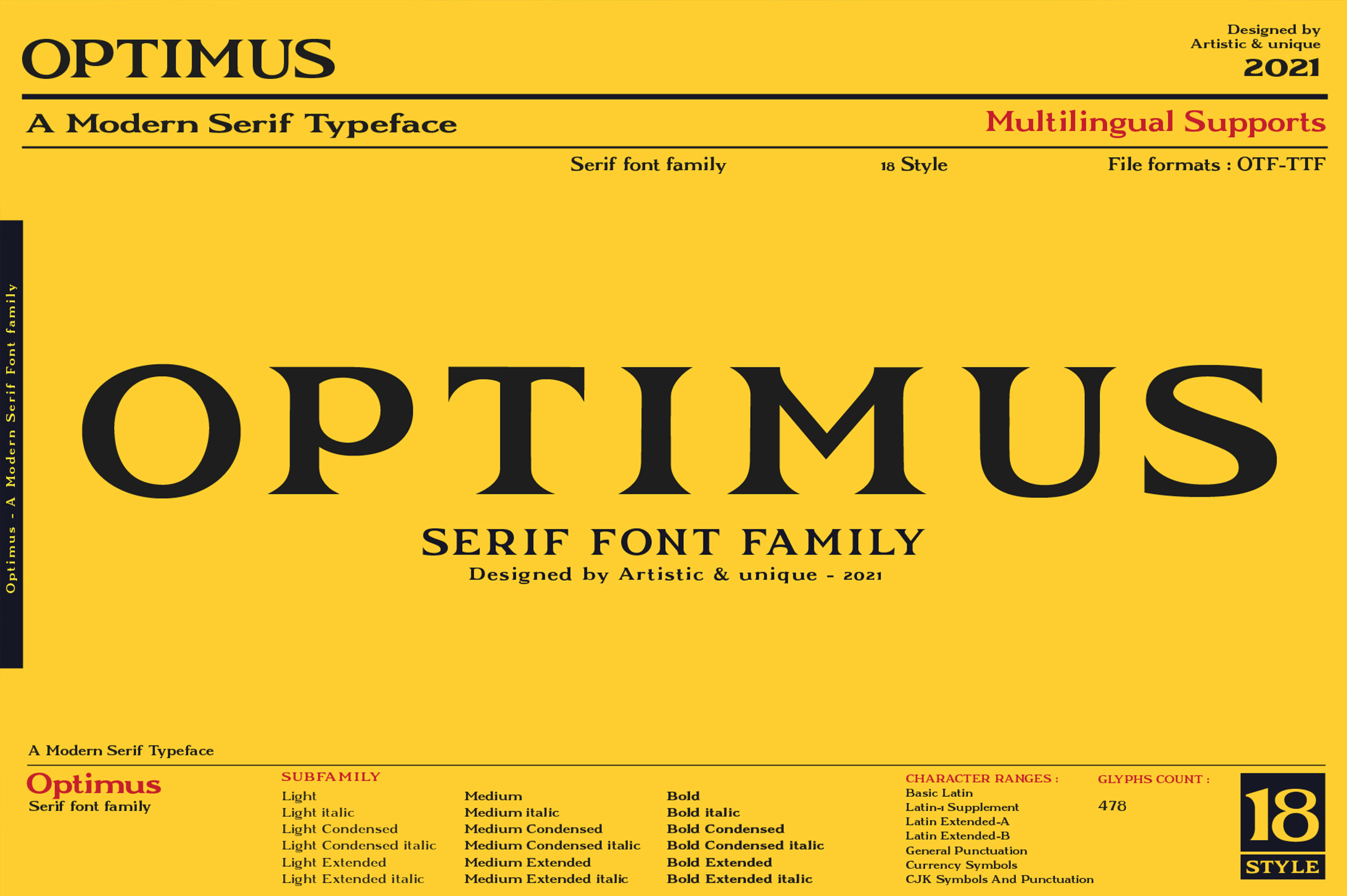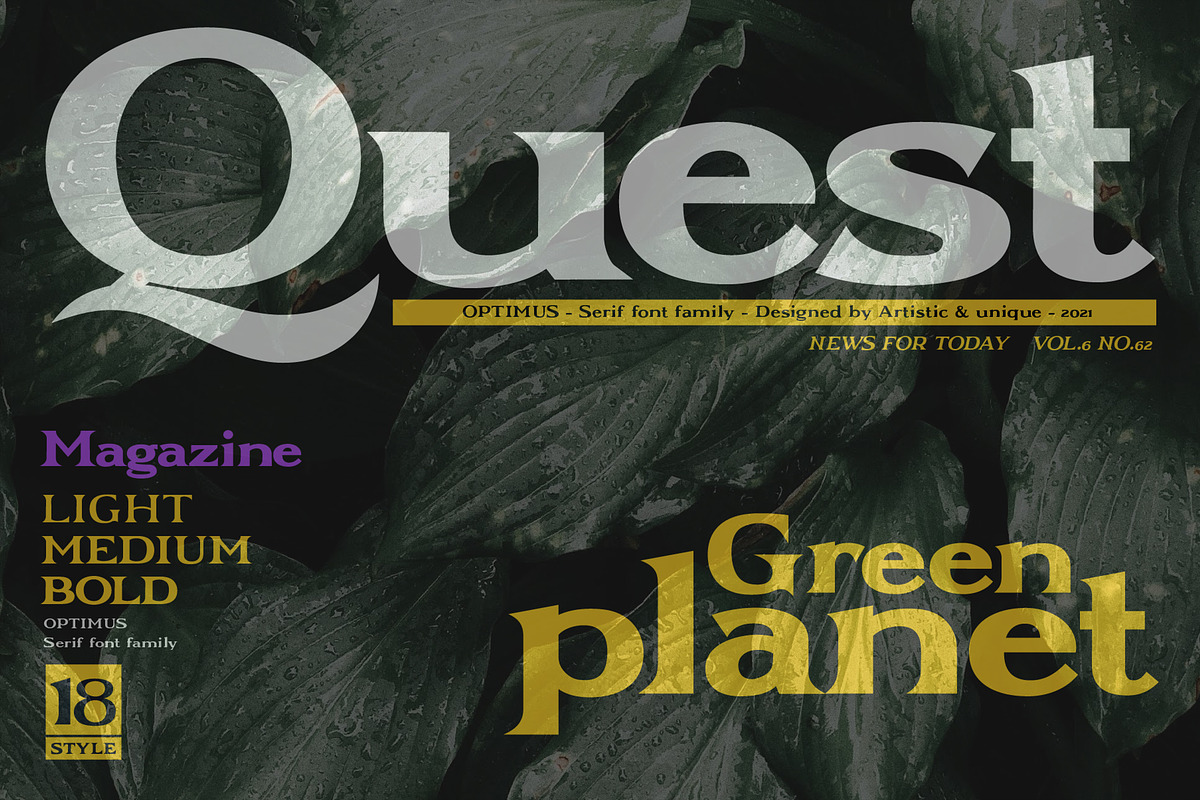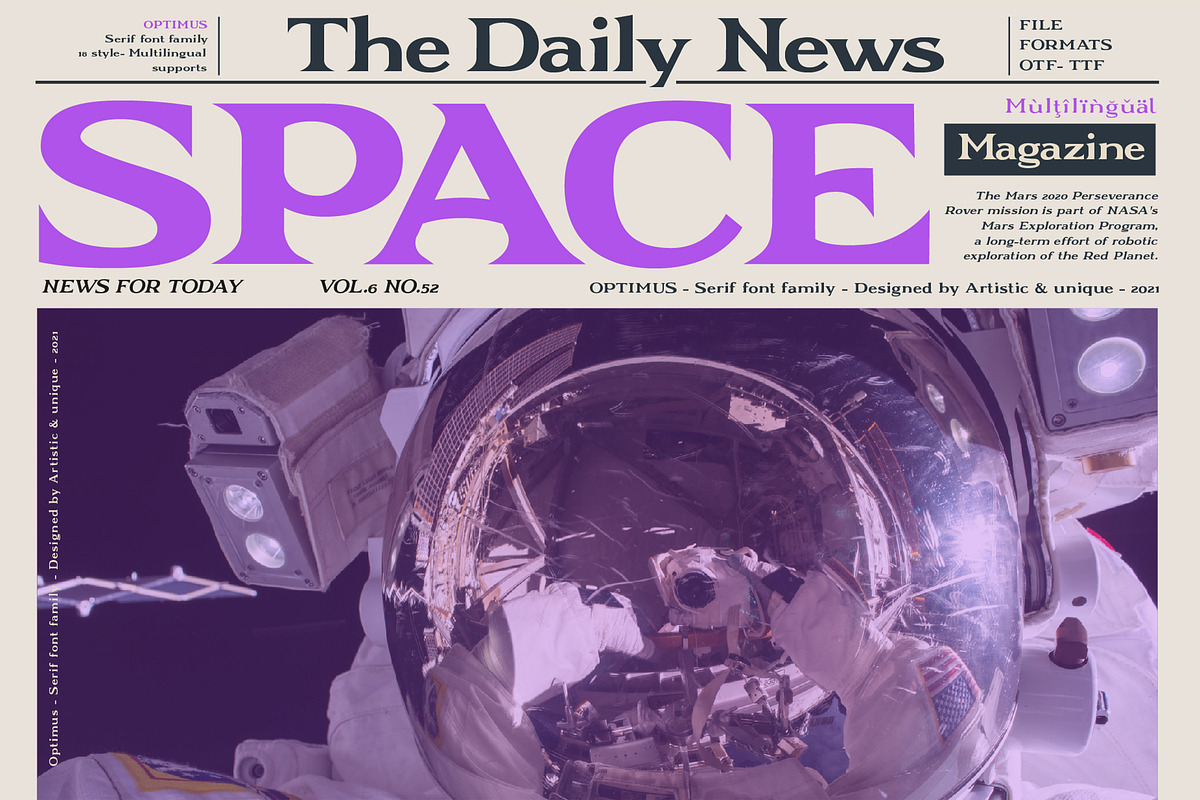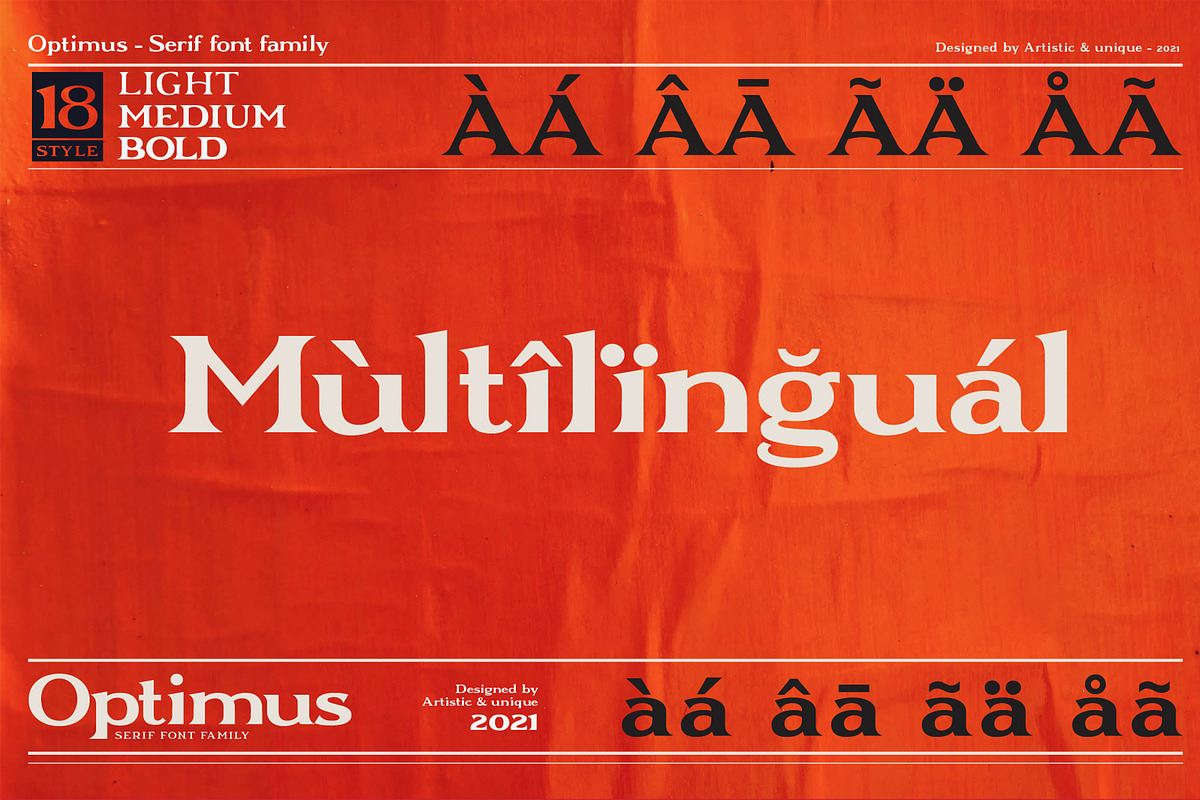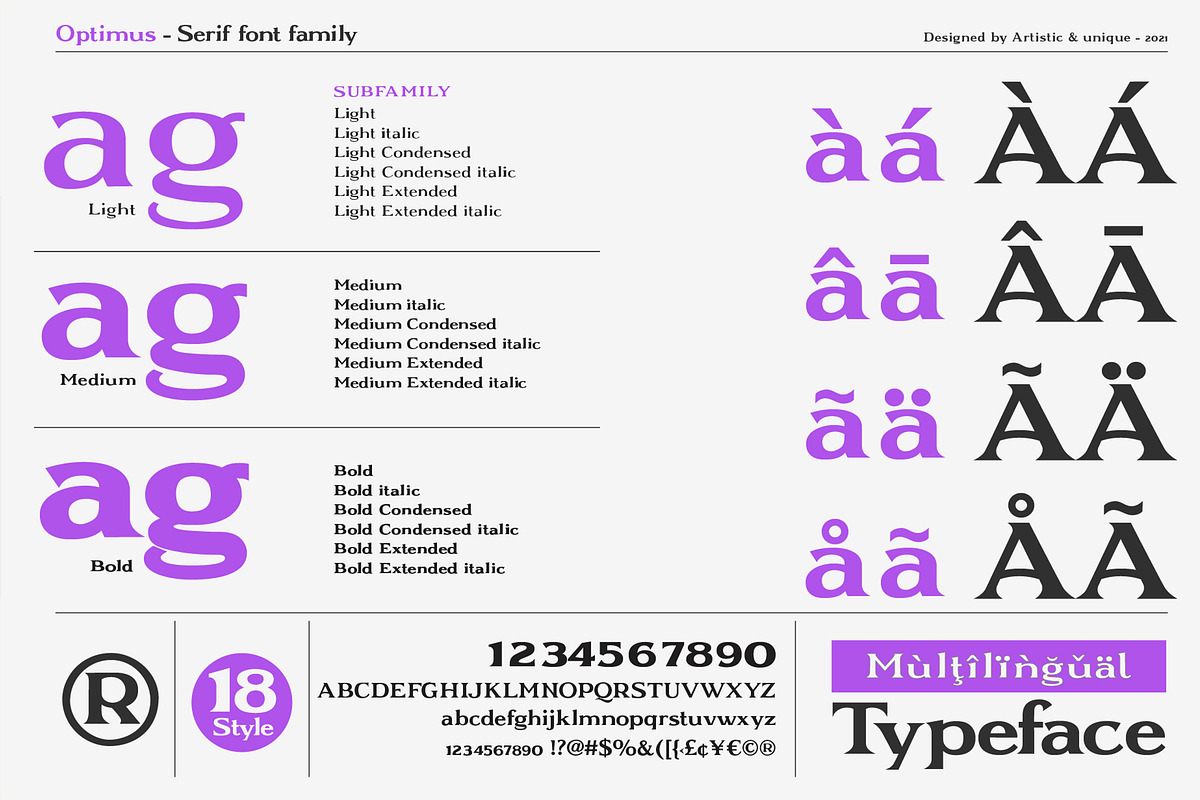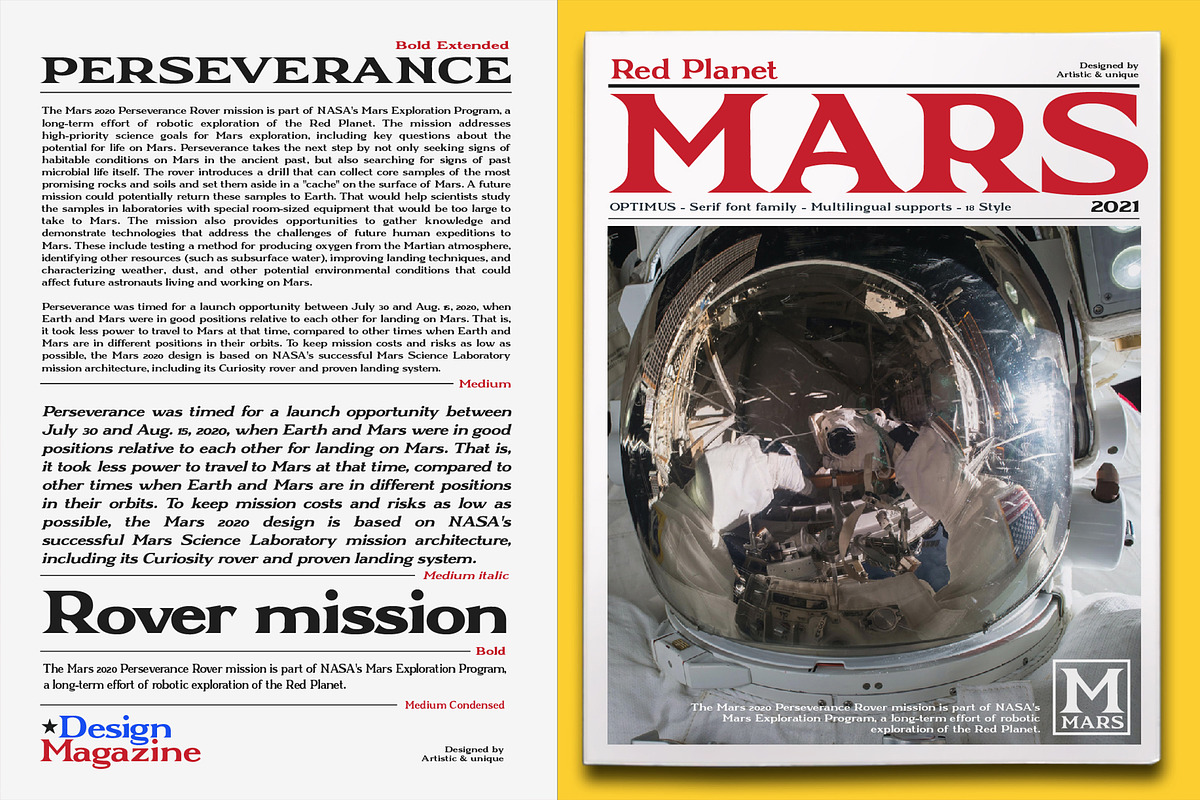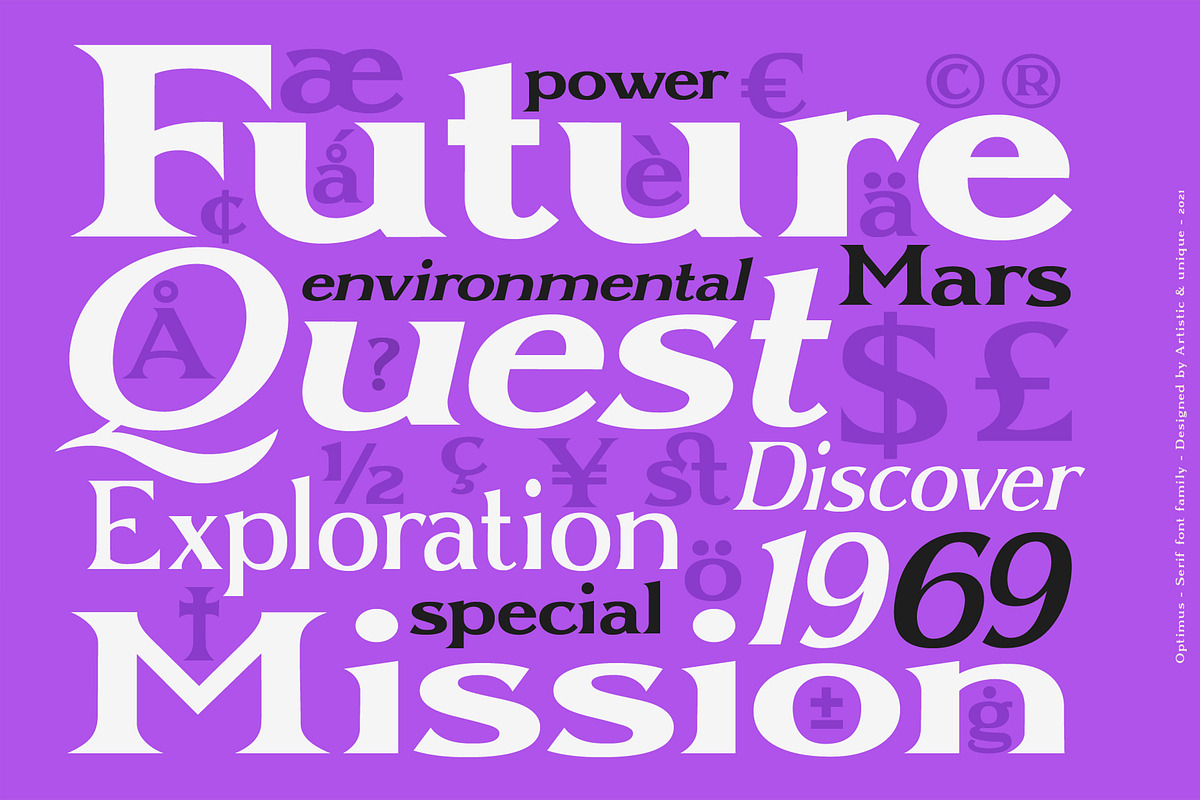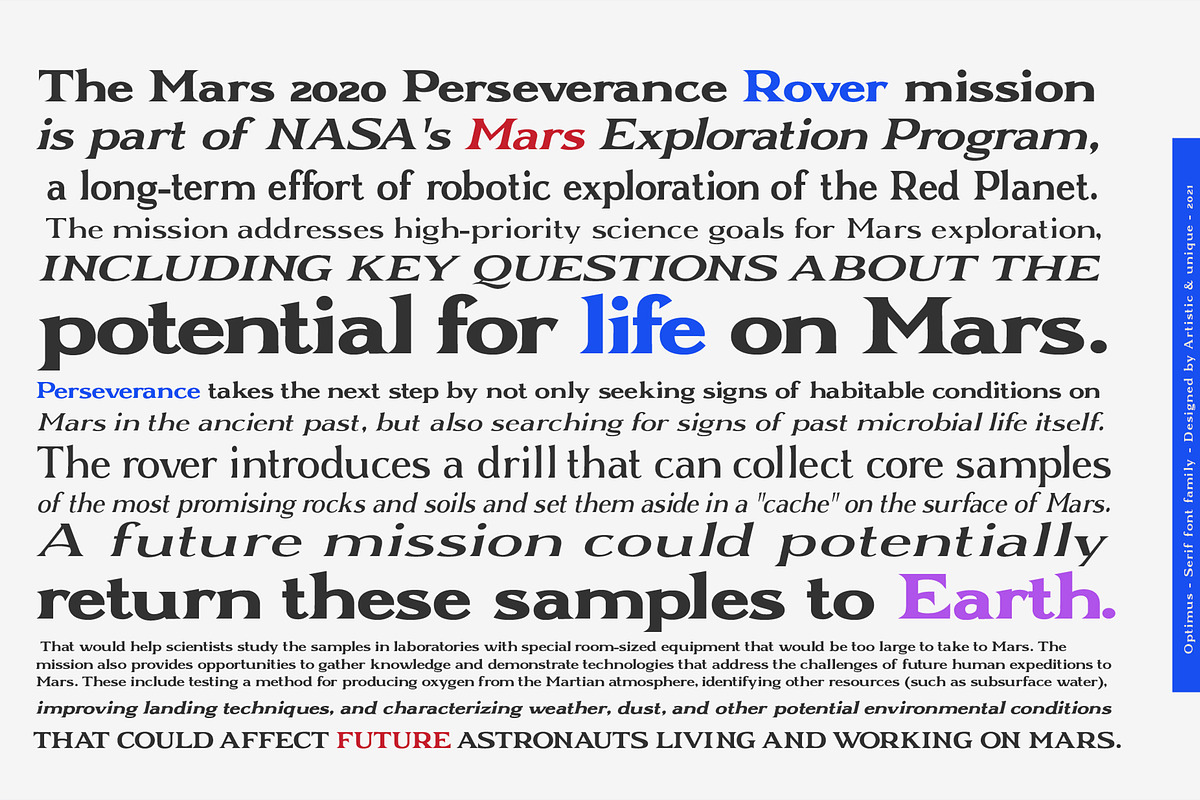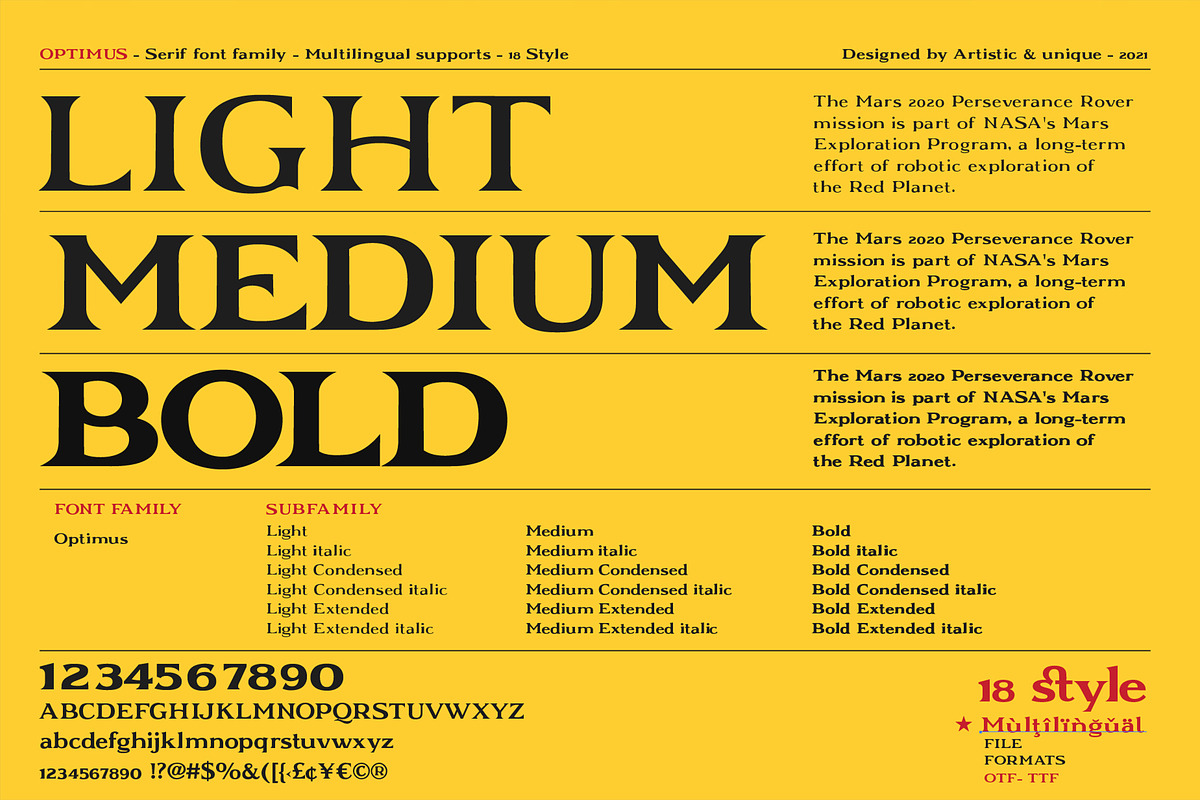
Optimus - Serif font family
Optimus - Serif font family - Multilingual supports, 18 Style - OTF,TTF
Optimus Serif font is a font family with aesthetic characters. If you are looking for a different look, it is ideal for your projects (magazine, cover or poster, etc.) created with Optimus characters.
You can create creative and stylish designs with combinations of upper and lower case letters in headings and texts.
This font offers alternative looks with 18 different styles and multilingual options to help you discover the best mood for your projects, from body text to big headlines, from classic to modern and bold looks.
If you are looking for a strong serif font with sharp lines, Optimus font can meet your needs.
Well suited for books and magazines, magazine covers, editorials, headlines, websites, logos, invitations, branding, advertisements and more.
FONT FAMILY :
- Optimus
FONT SUBFAMILY :
Light
Light italic
Light Condensed
Light Condensed italic
Light Extended
Light Extended italic
Medium
Medium italic
Medium Condensed
Medium Condensed italic
Medium Extended
Medium Extended italic
Bold
Bold italic
Bold Condensed
Bold Condensed italic
Bold Extended
Bold Extended italic
Uppercase typeface
Lowercase typeface
Symbols
With this font you can create your unique designs.